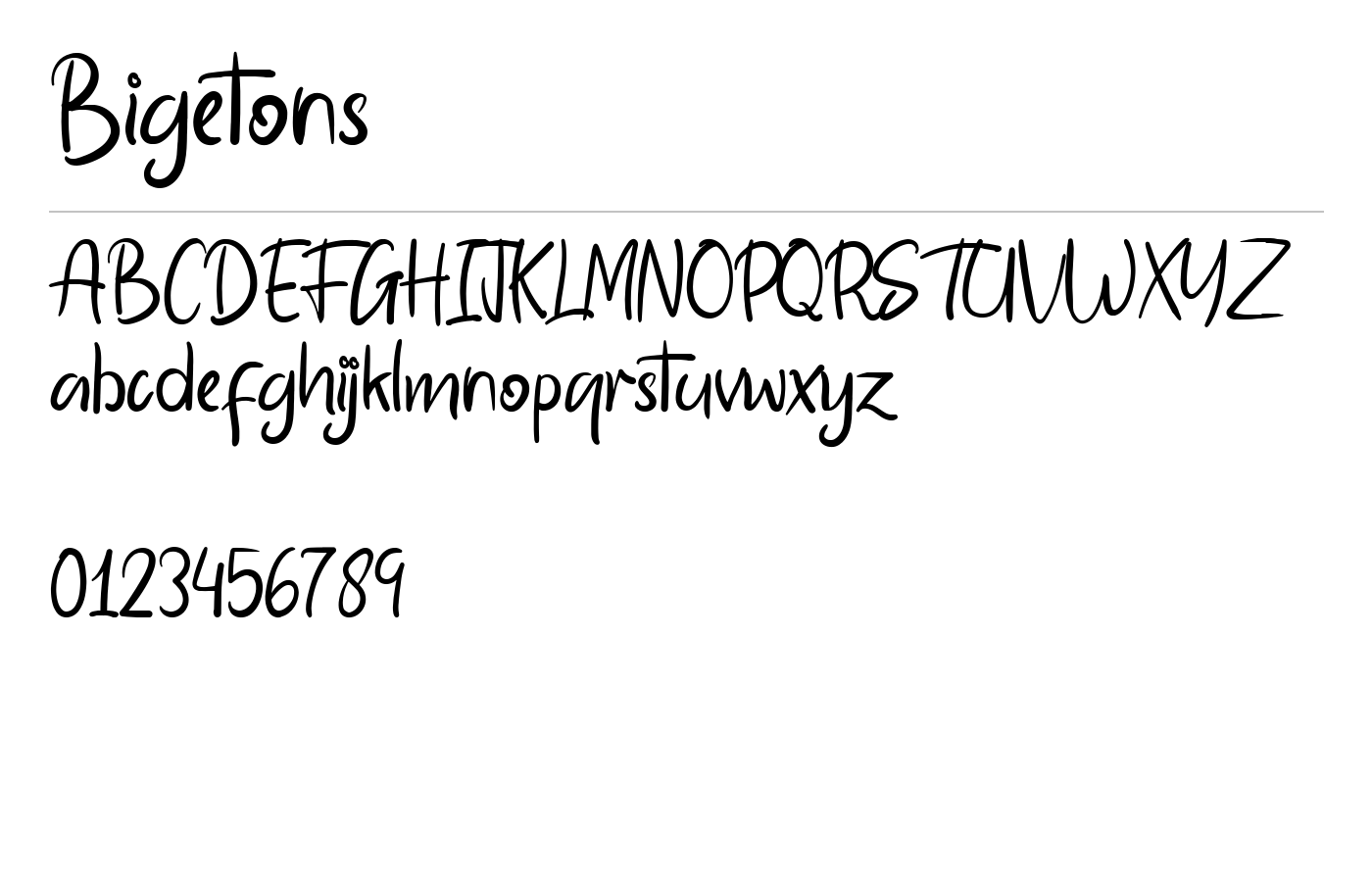
Bigetons is a playful, handwritten sans serif font with a casual and friendly vibe. Its irregular strokes and slightly tall, narrow letterforms give it an informal and approachable personality, making it perfect for creative projects, branding, and fun editorial uses. This font shines in logos, invitations, and headlines where a personal and lively touch is desired.
Bigetons Font
About Bigetons Font
| Font family | Bigetons Font |
| Designer | Keristyper Team |